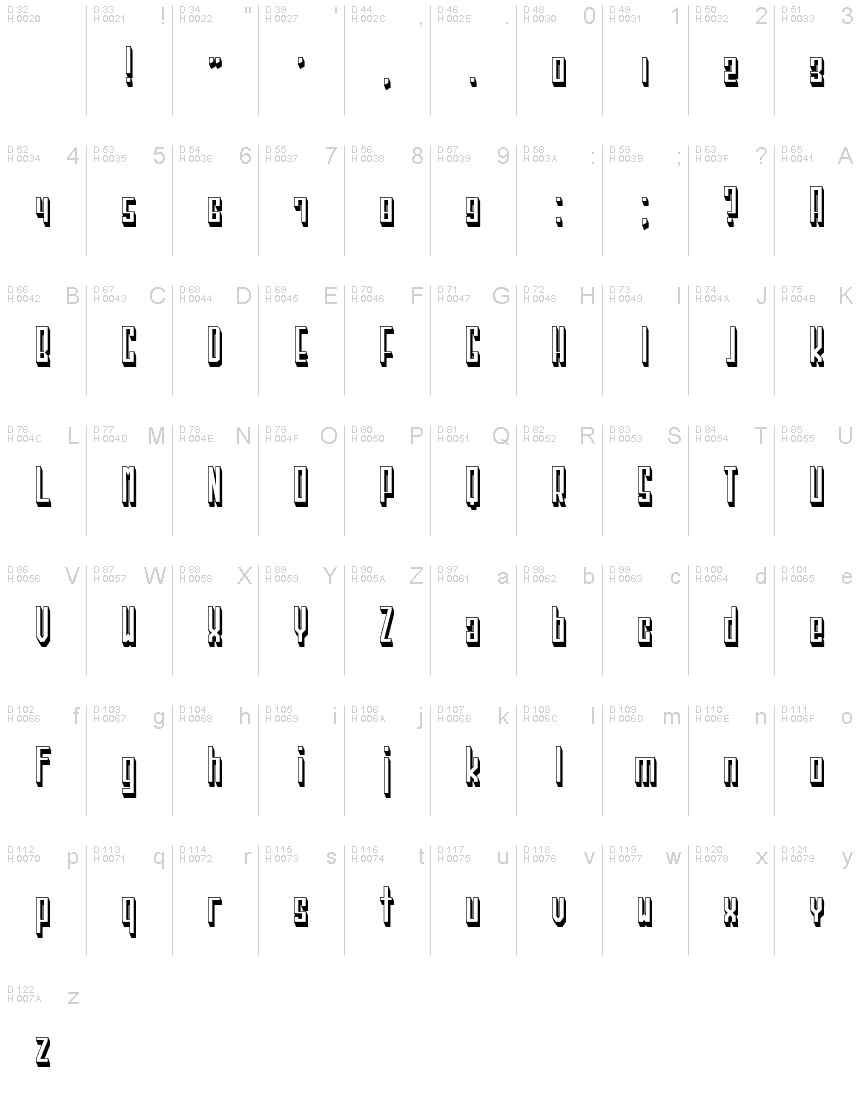
Xenia Regular
Xenia is a futuristic and edgy display font, created by the talented Vladimir Nikolic. Its 3d techno style gives it a unique and eye-catching look that's perfect for projects that need to stand out. With its semi-light weight and extra-condensed width, Xenia is ideal for headlines, titles, logos, and other design elements that require a bold statement. This font's sleek and modern appearance makes it suitable for a wide range of creative projects such as technology websites, gaming graphics, music album covers, or even fashion branding. Add an element of cool and sophistication to your designs with Xenia!